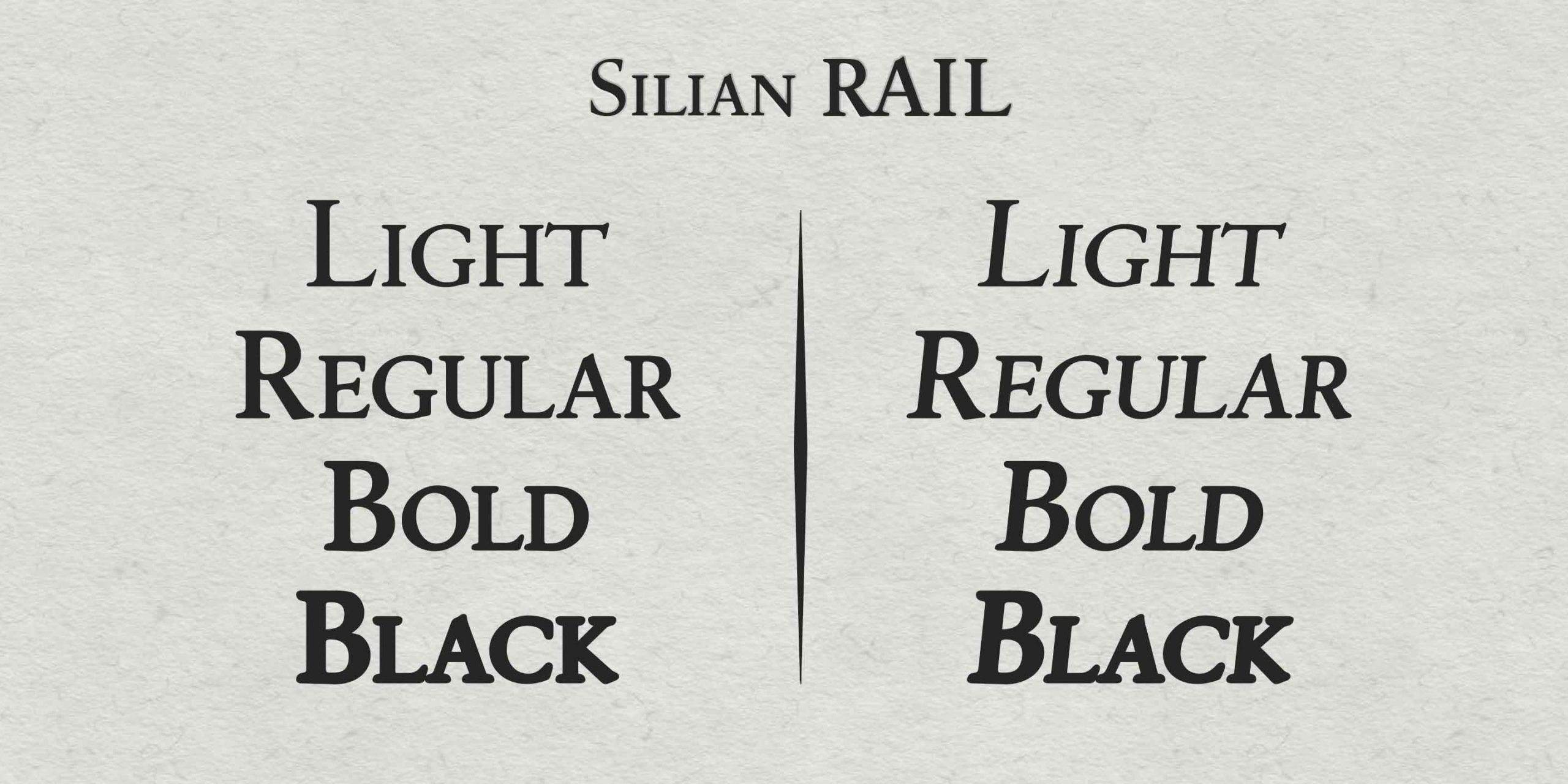
Silian Rail Font
Silian Rail Serif Font
This is a serif display typeface with multilingual support. A professional uppercase font, this intellectual font has a distinct personality while being strict and controlled. Drawn and created by Mans Greback in 2022, the Silian Rail family consists in 16 high-quality styles, complimenting each other. The font is built with advanced OpenType functionality and has a guaranteed top-notch quality, containing stylistic and contextual alternates, ligatures and more features; all to give you full control and customizability. It has extensive lingual support, covering all Latin-based languages, from Northern Europe to South Africa, from American to South-East Asian. It contains all characters and symbols you’ll ever need, including all punctuation and numbers.